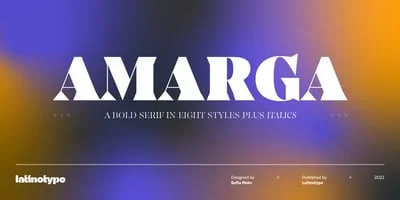
Amarga Font
Amarga Font excels in editorial magazine design, newspaper headlines, book publishing, academic journals, corporate annual reports, professional documentation, legal firm branding, and sophisticated text-heavy publications requiring exceptional readability and authoritative presence.
Amarga Font generates excitement through its perfect balance of readability and character, offering designers a typeface that maintains personality while delivering uncompromising legibility. This font captivates with its refined letterforms and optimized spacing that ensures comfortable reading experiences across both digital screens and printed materials.
Amarga Font family includes comprehensive weight variations: Thin, Light, Regular, Medium, Bold, and Black options. Additional italic styles and condensed versions provide designers with extensive typographic flexibility for creating sophisticated hierarchical structures and dynamic layout compositions in professional publishing environments.
The editorial excellence of Amarga Font makes it essential for projects demanding professional typography standards. This versatile typeface seamlessly adapts to both body text and display applications, delivering consistent performance while maintaining distinctive character that sets publications apart in competitive media landscapes.
Publishing professionals consistently choose Amarga Font for projects requiring reliable, sophisticated typography. Its optimized metrics and careful letter spacing make it perfect for newspapers, magazines, books, and digital publications where readability and professional appearance are paramount. The font's technical precision ensures optimal performance across all platforms.